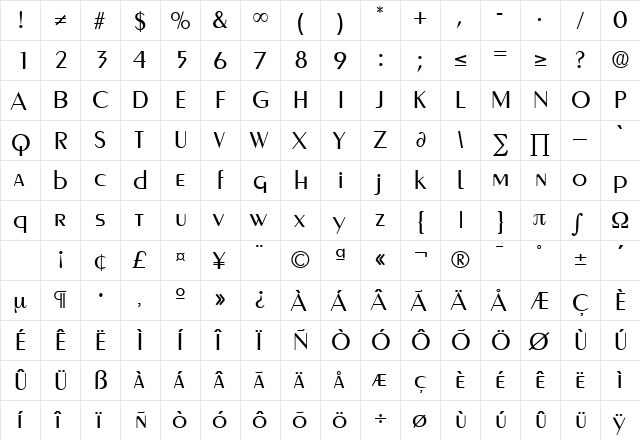
Greyhound DB Regular
Design Context for Greyhound DB Typeface
Greyhound DB offers clean, dependable letterforms without strong stylistic allegiance, making it a practical choice for designers who need flexibility.